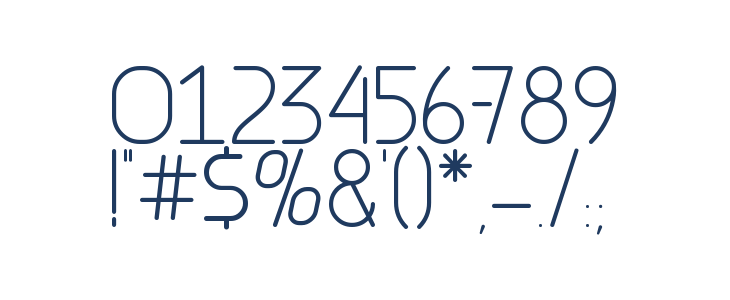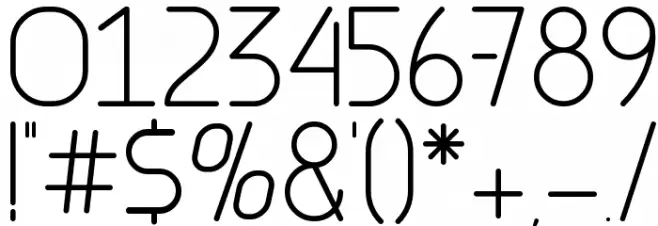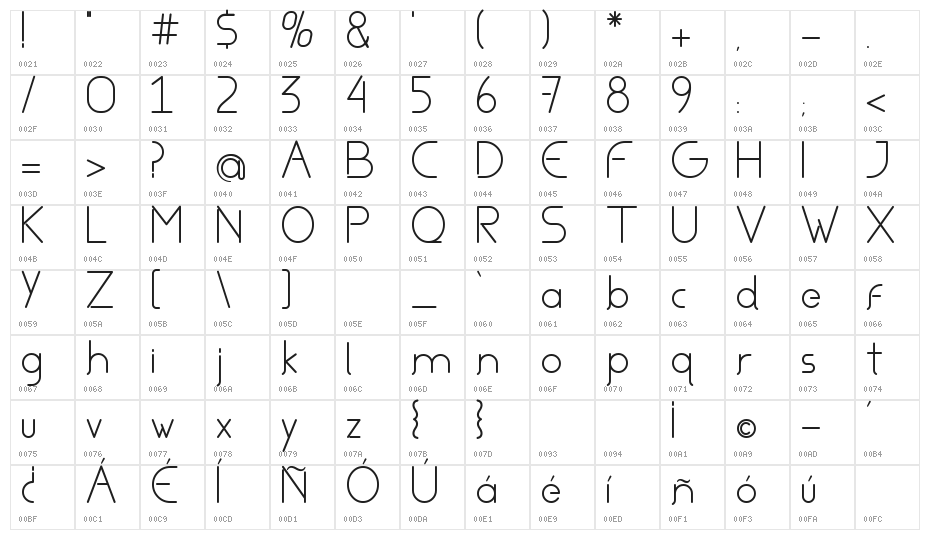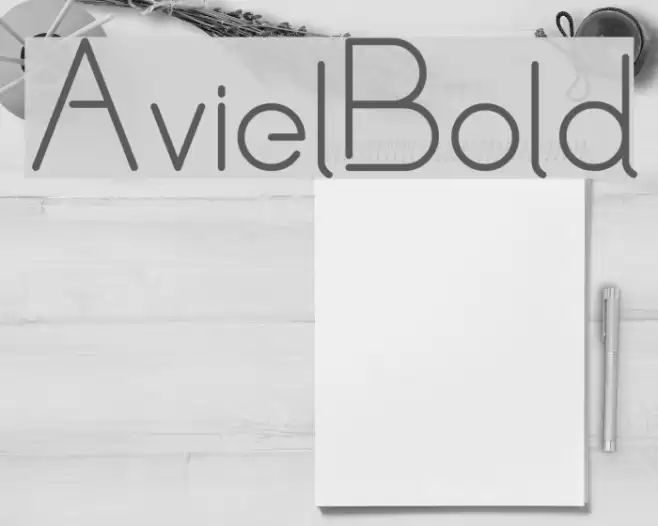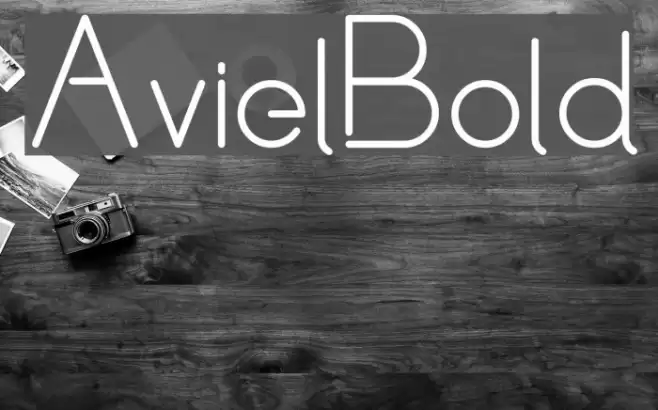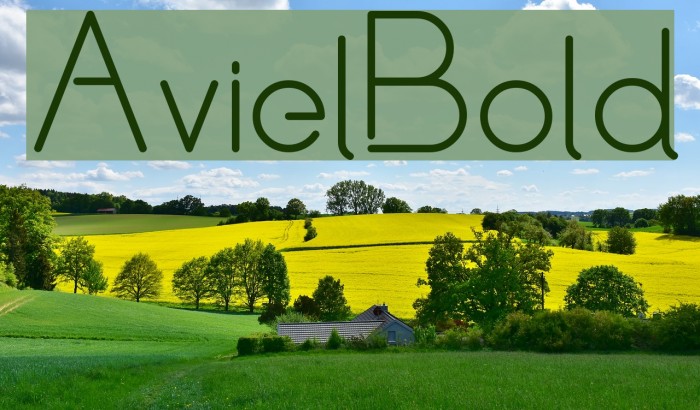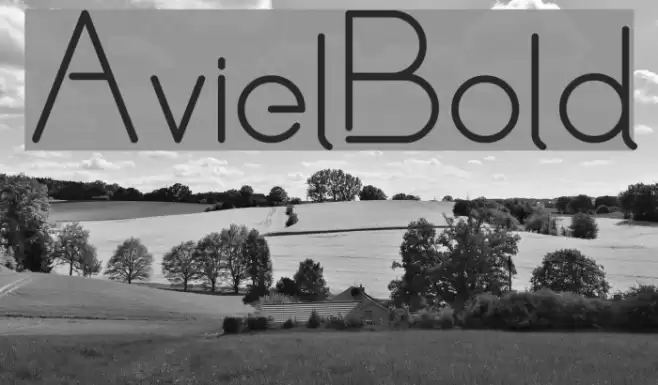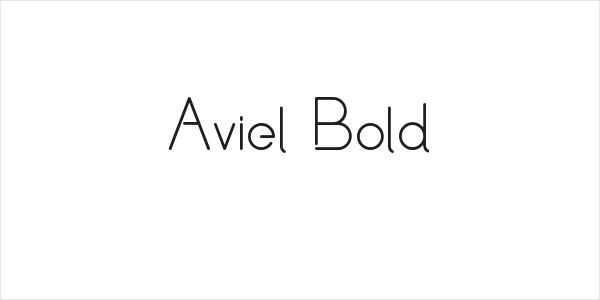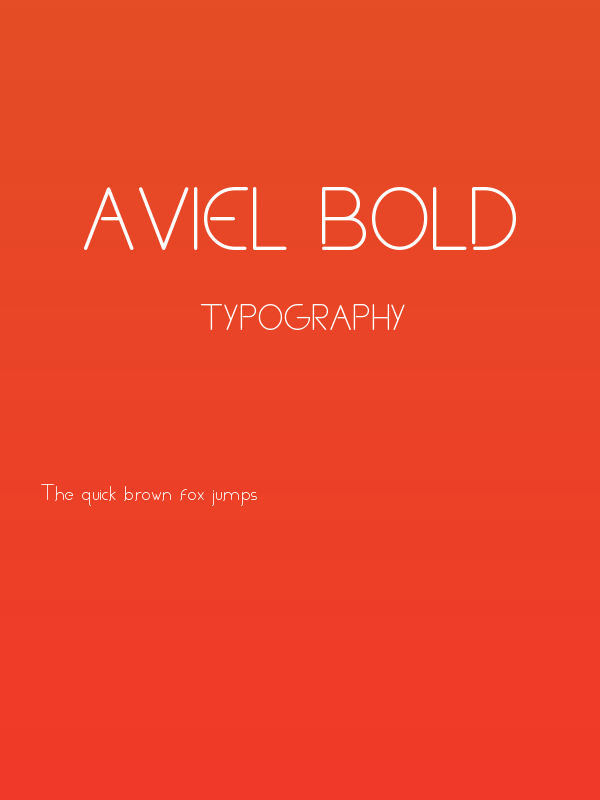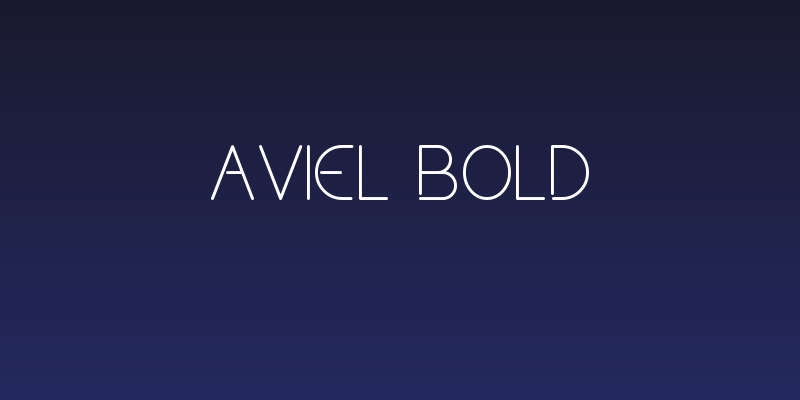
Aviel Bold Font
Aviel Bold Description
This font features a clean and modern design with a geometric structure. The characters are composed of simple lines and curves, creating a minimalist and contemporary appearance. The uppercase and lowercase letters maintain a consistent style, with rounded edges and a uniform stroke width. The numerals and special characters follow the same design principles, ensuring a cohesive look across all elements. This font's simplicity and clarity make it highly readable, while its modern aesthetic adds a touch of elegance and sophistication.
| Proposed Projects | Ideal for branding, logos, web design, and modern print materials. |